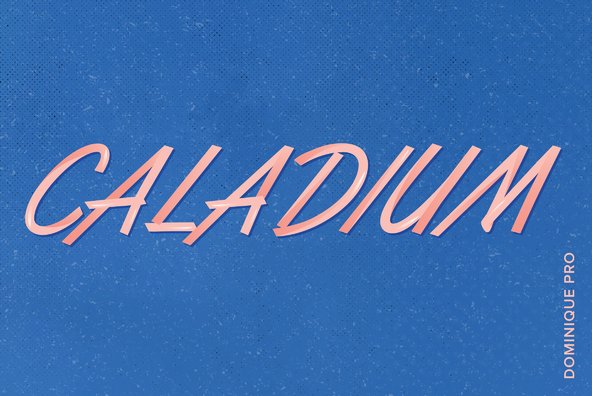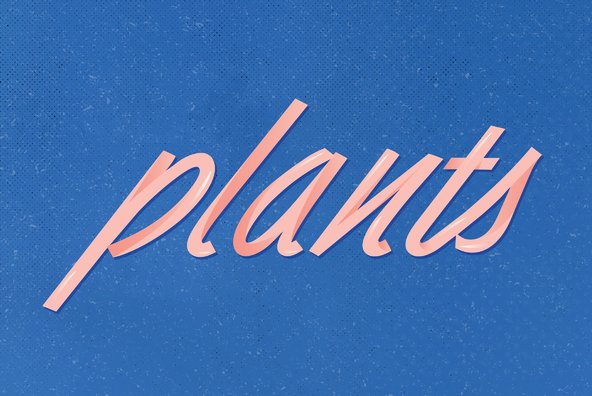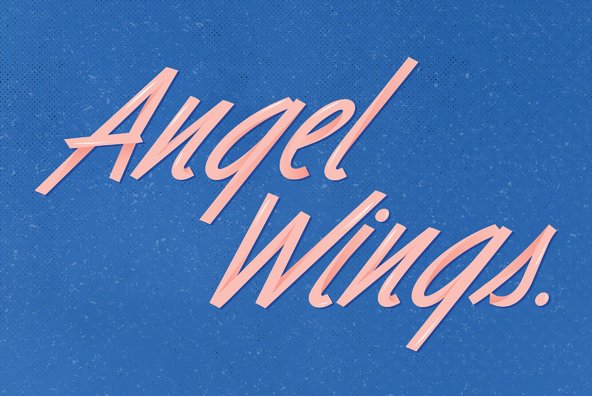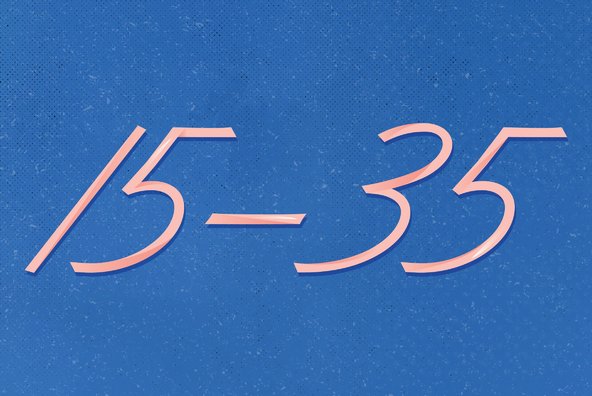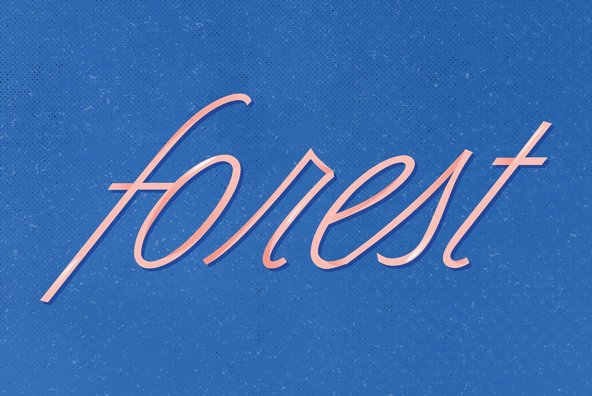
Dominique Pro
Foundry: profonts
Dominique Pro is another new profonts typeface family designed and digitally developed early 2010 in the profonts studio. The family comes with four styles as light, regular, medium, and bold, each style with full Latin character set plus a wide range of ligatures and alternates for professional typesetting in OTF savvy applications such as InDesign and QuarkXPress. Dominique Pro has a strong oblique angle giving it a swinging and dynamic character. Distinctive and informal this unusual script type style is suitable for a wide ariety of display applications, particularly where a casual effect is desired.